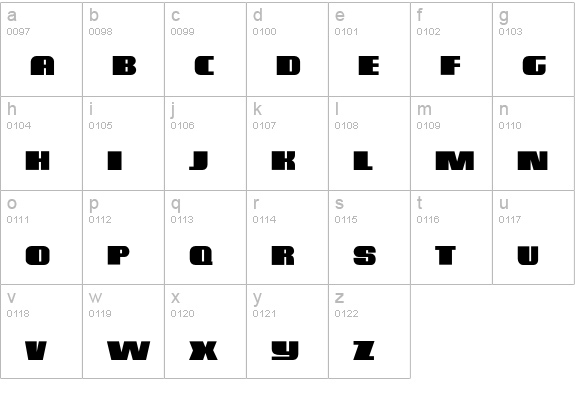
Roger-Normal Font Details
Roger-Normal is the standard, neutral variant in the Roger typeface family \xE2\x80\x94 well suited to general body text, paragraphs, and standard typographic work.
Introducing Roger-Normal font, a versatile typeface that effortlessly combines modernity with classic elegance. With its clean lines and balanced proportions, Roger-Normal is the perfect choice for a wide range of design projects, from branding to editorial layouts. This elegant font features a full character set, including uppercase and lowercase letters, numbers, and punctuation marks, making it suitable for both headlines and body text. Its timeless design ensures that your message will always make a statement, no matter the context. Best of all, Roger-Normal is available for free download at FontsMarket.com. Don't miss the opportunity to add this sophisticated font to your collection and elevate your design projects to the next level. Download Roger-Normal today and unleash your creativity!